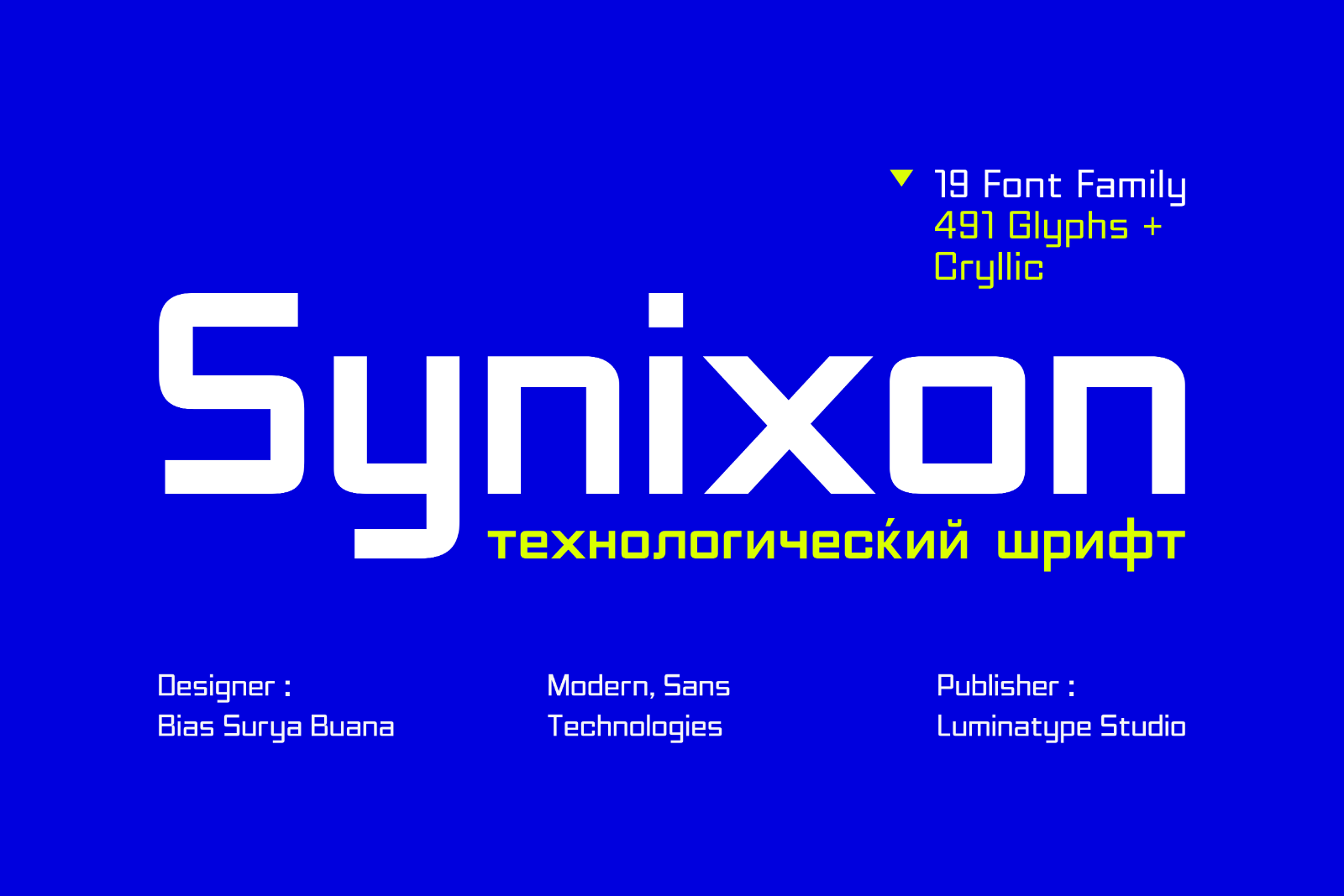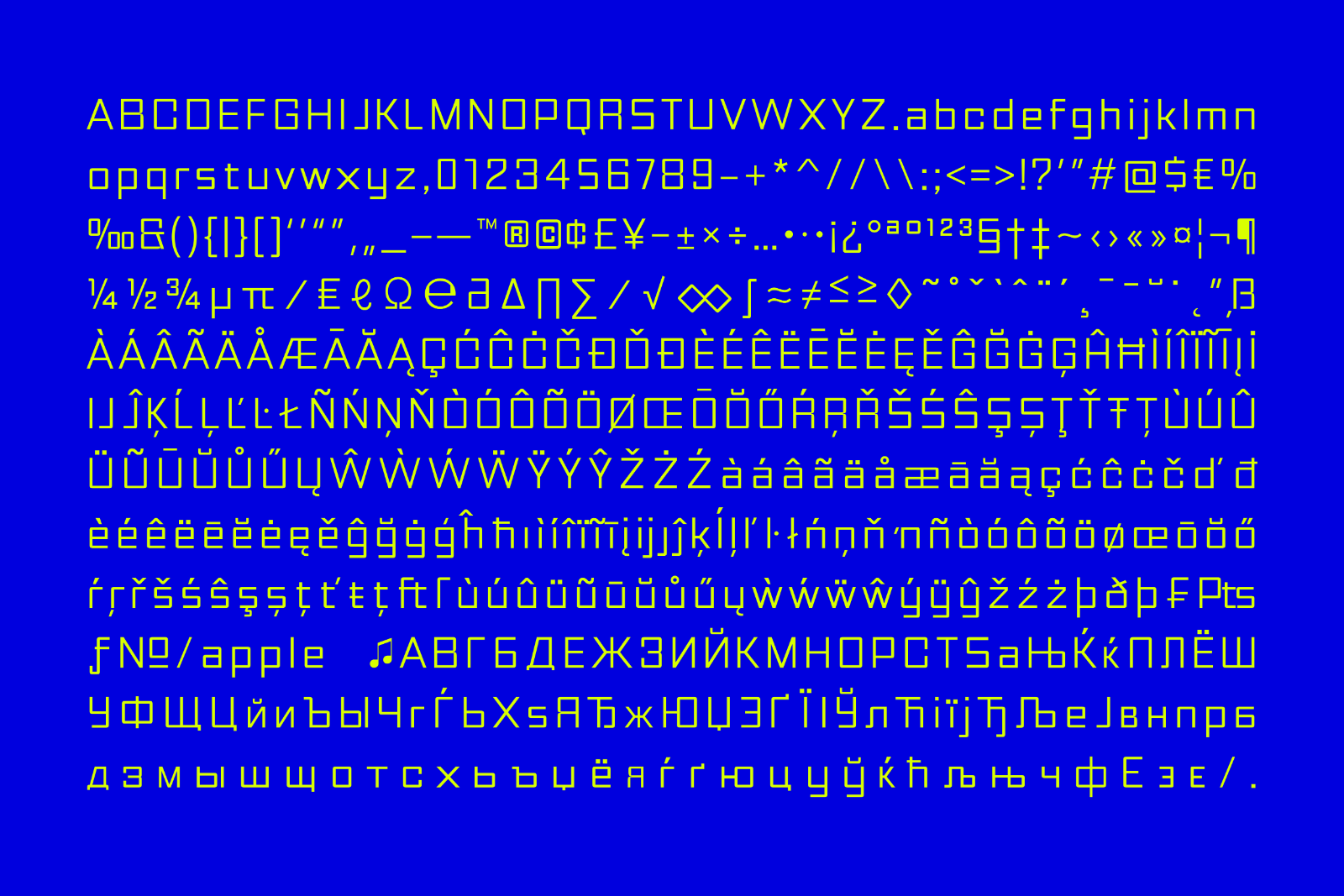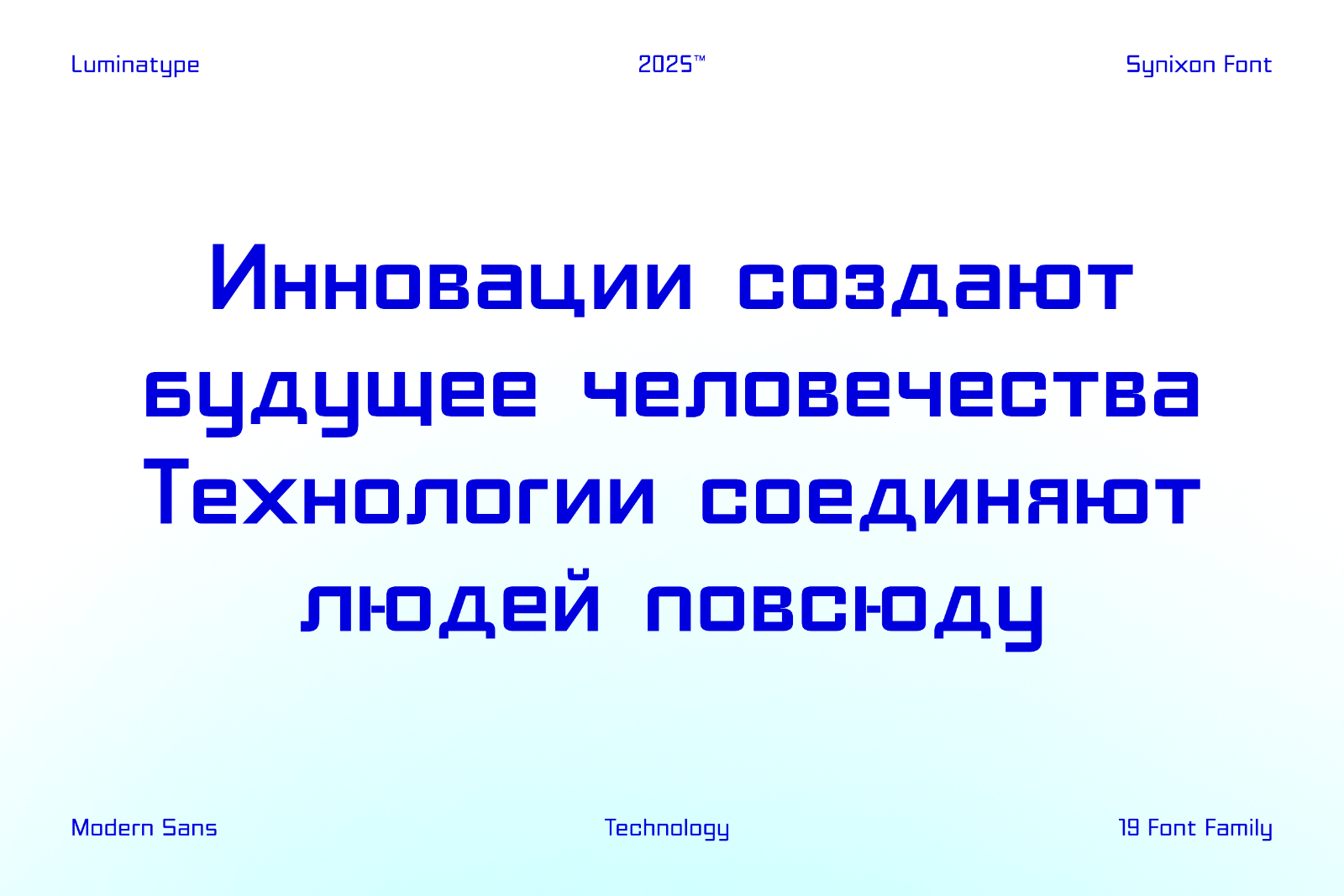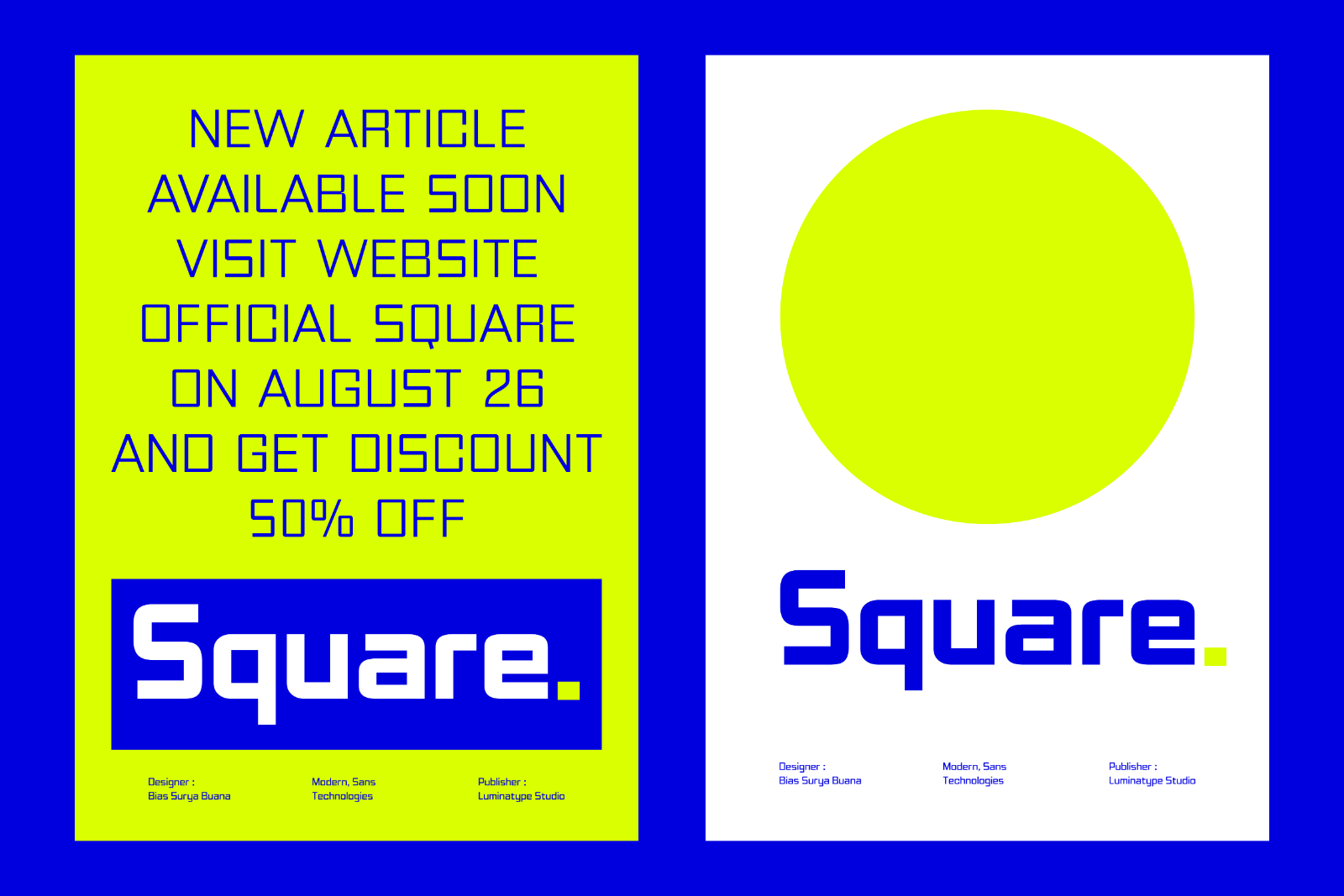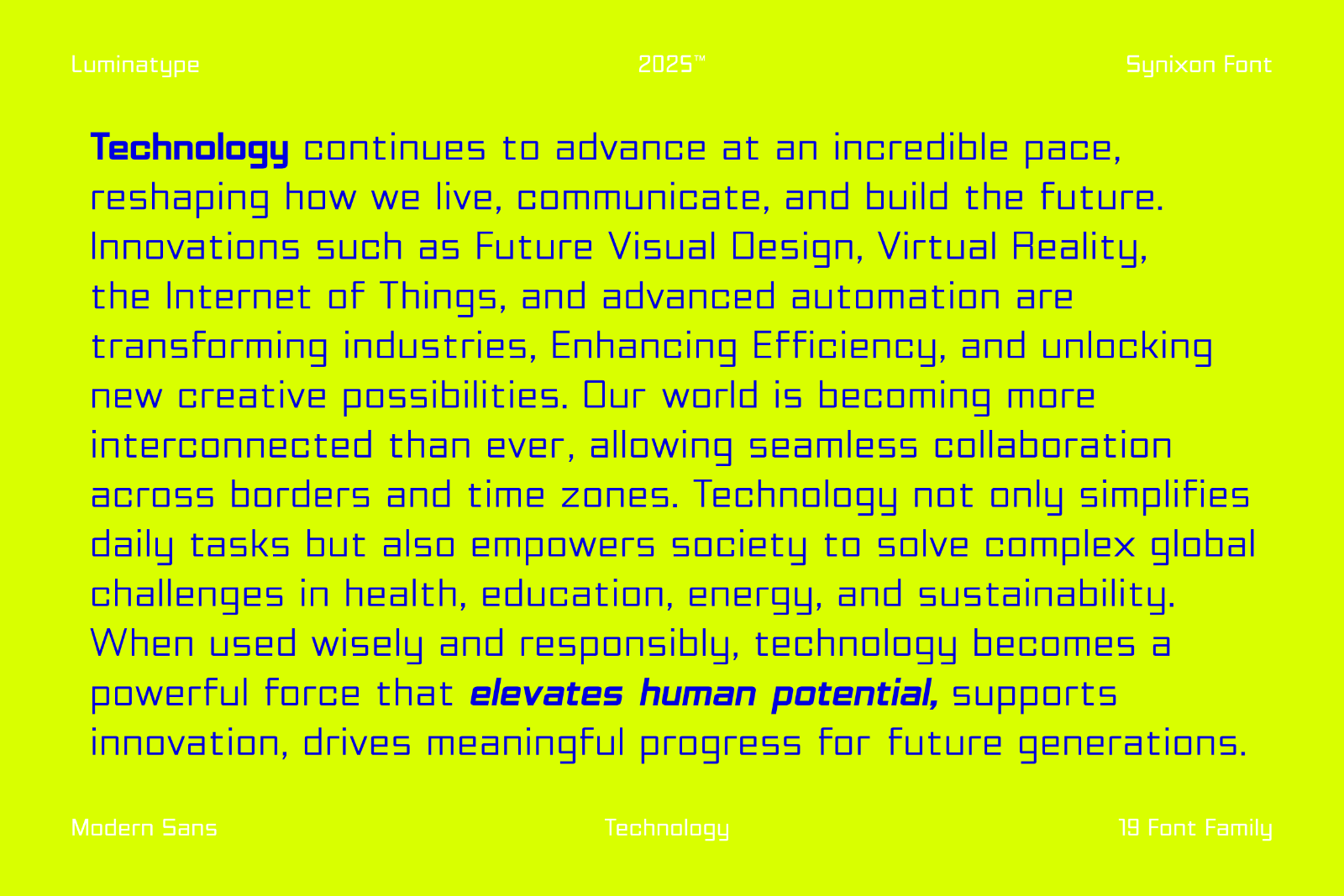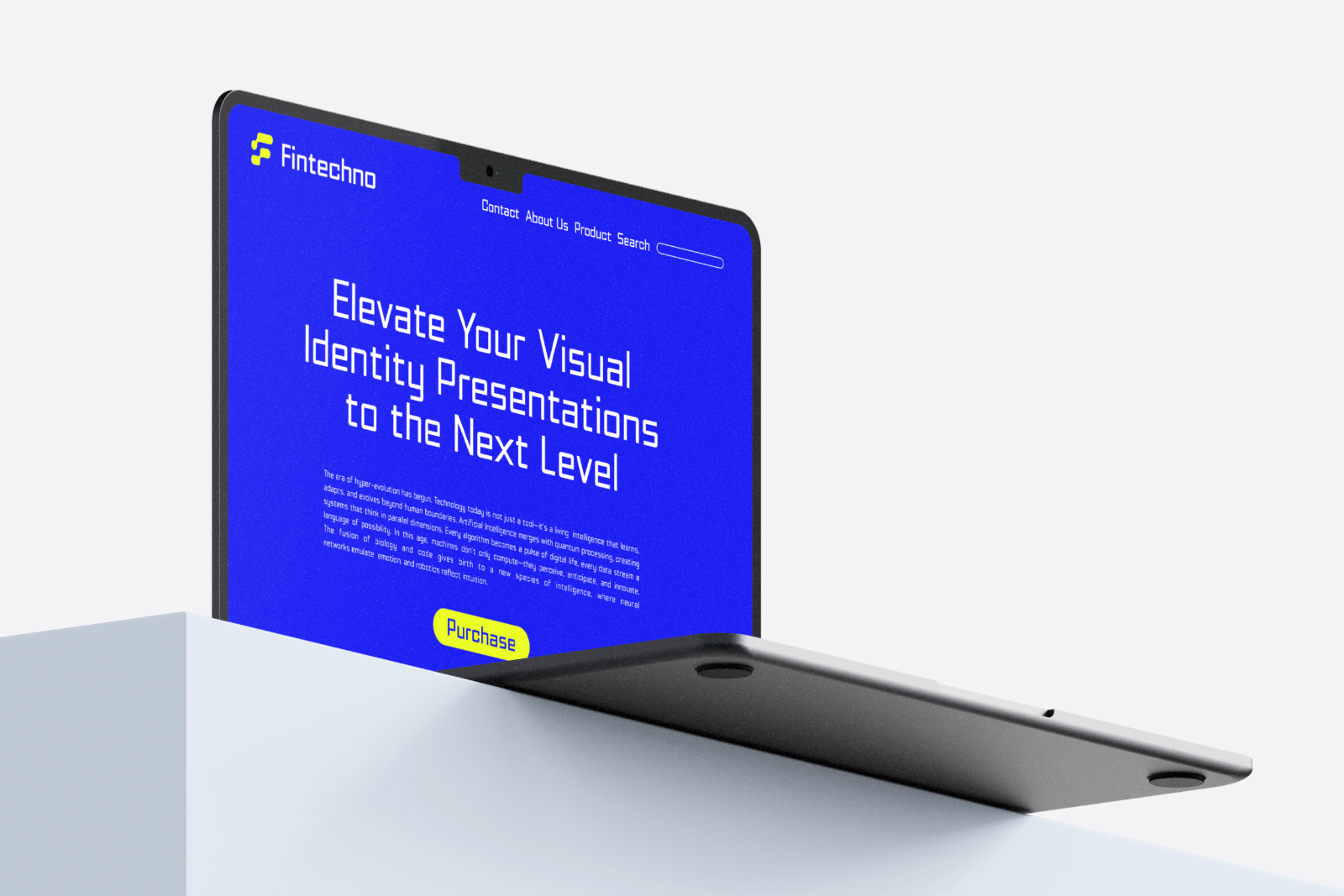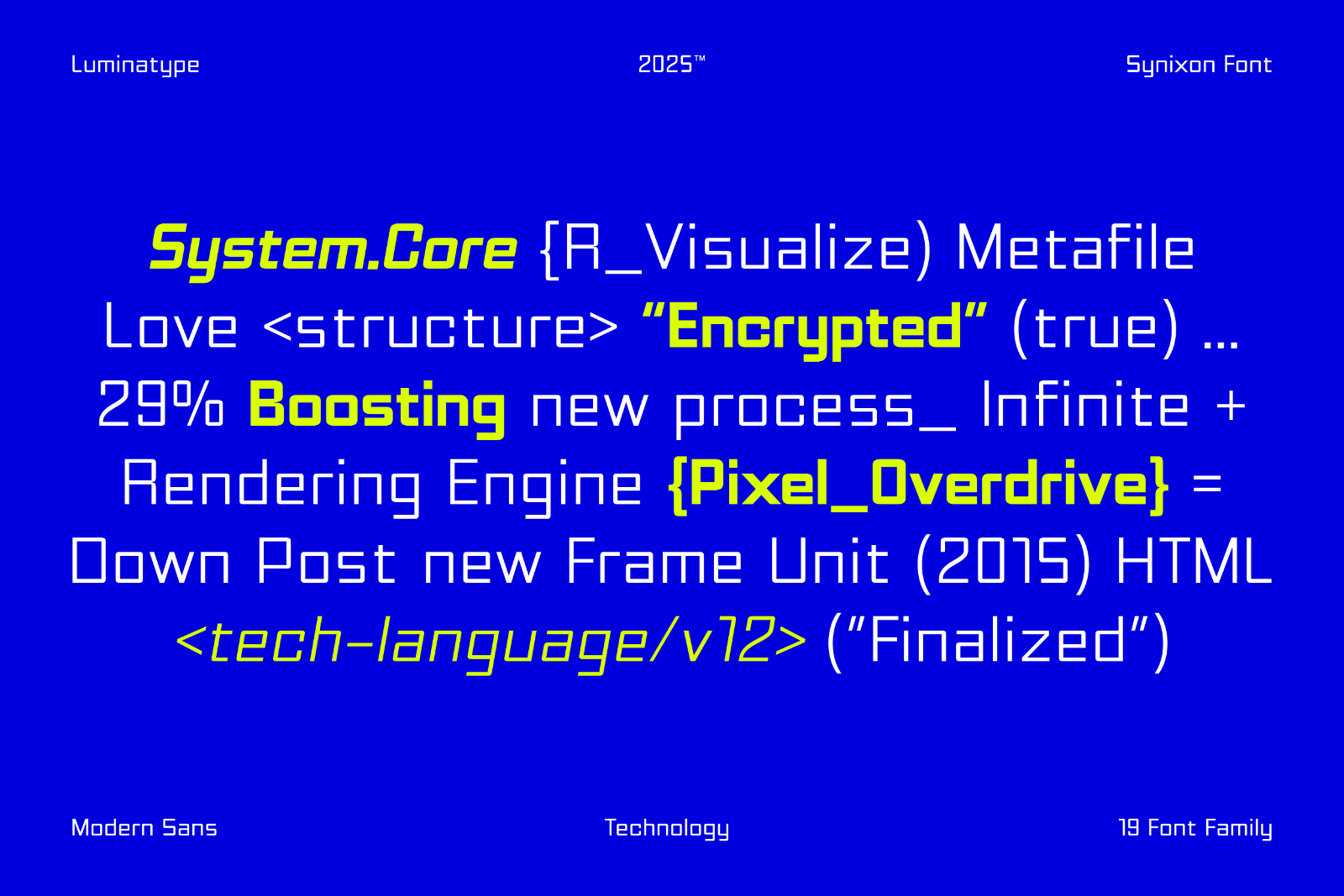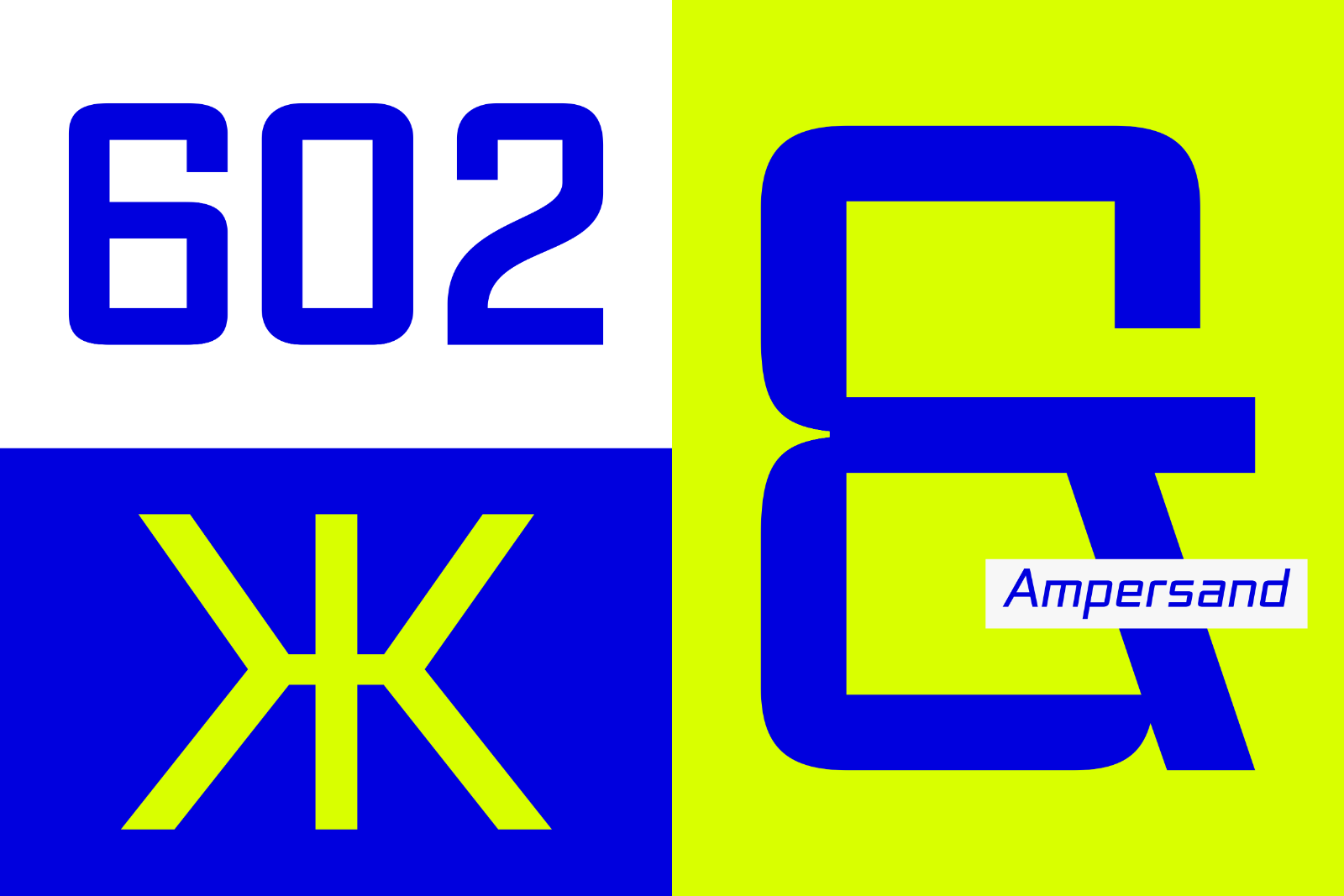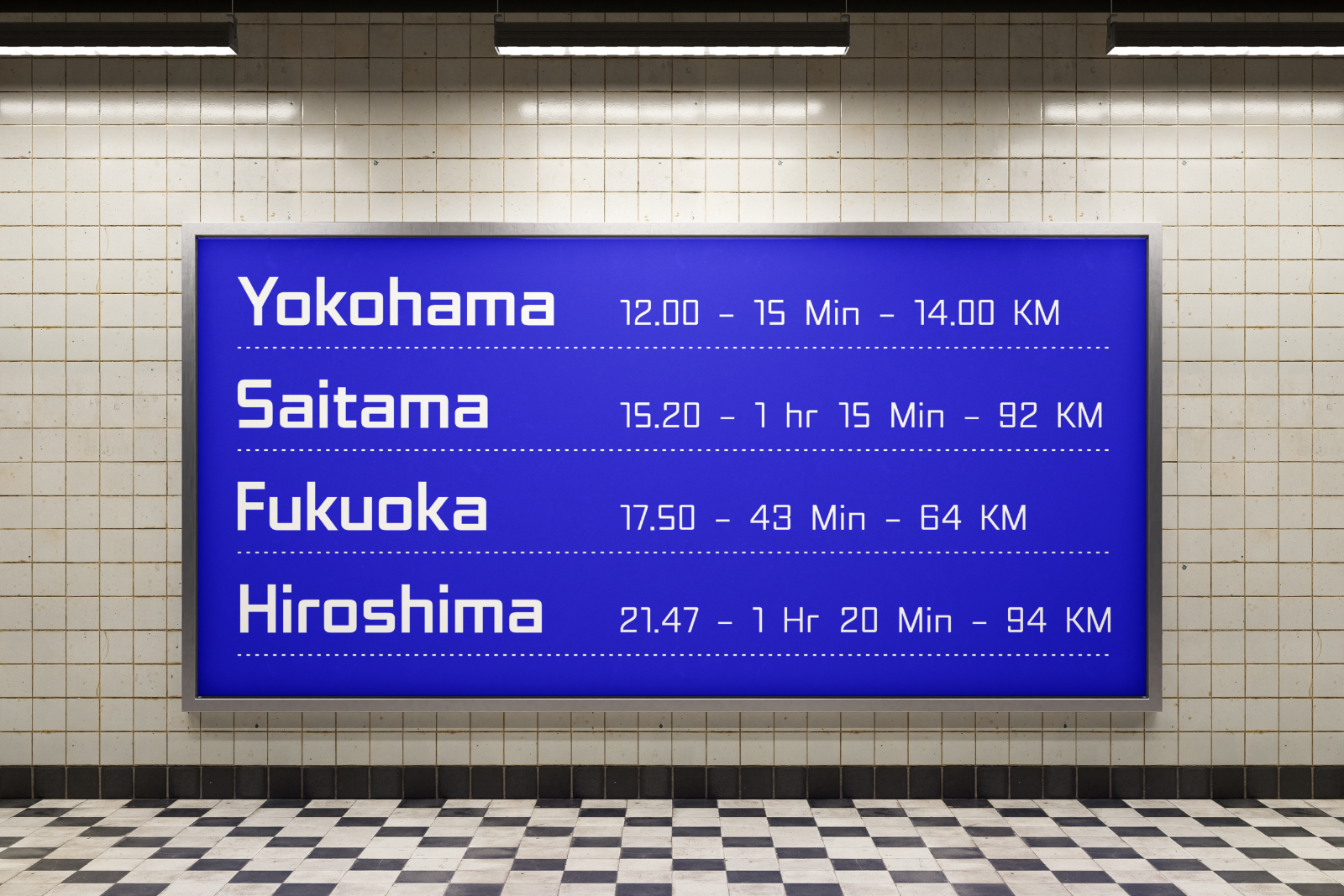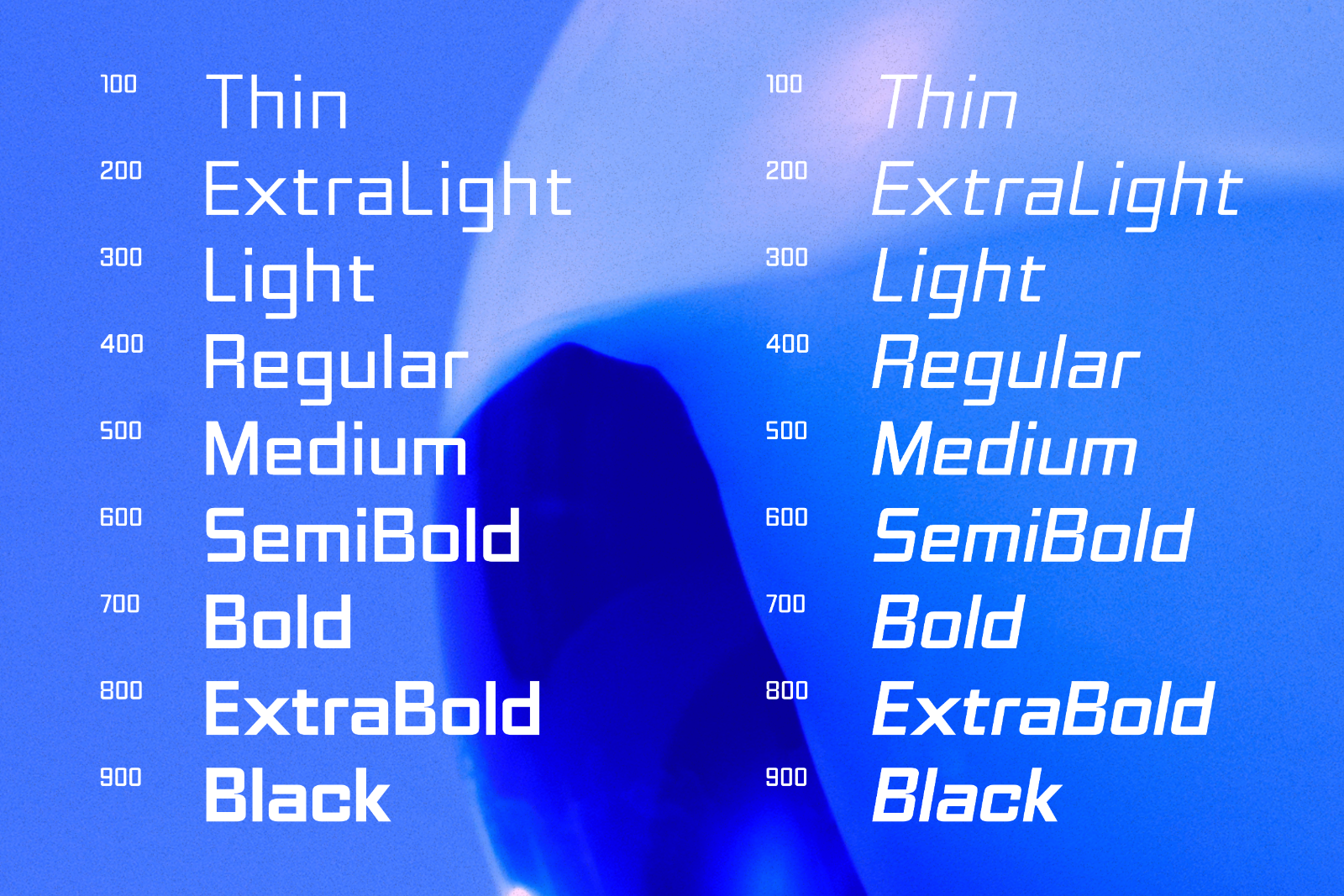
Synixon is a modern technological sans-serif typeface designed by Luminatype Studio, crafted for creators who seek clarity, power, and precision in every letterform. Engineered with a forward-thinking aesthetic, Synixon delivers a sleek and highly functional visual tone that elevates any contemporary design. This advanced type family features 19 weights from Thin to Black, accompanied by matching Italic styles from Thin–Black. Synixon also includes Cyrillic support and a robust set of 491 glyphs, ensuring broad versatility and seamless global communication. Built on a concept of simplicity, strength, and modern sharpness, Synixon offers excellent legibility even at small sizes — making it ideal for clean interfaces and high-tech visual environments. Its refined geometric construction and confident structure create a distinct presence without sacrificing readability or balance. Perfectly suited for Branding, Brand Identity, Logos, Websites, UI/UX, Editorial layouts, and a wide range of modern design needs, Synixon adapts effortlessly to both minimalistic and futuristic aesthetics. Choose Synixon and bring a bold, intelligent, and innovative character to your next project — a font crafted to make your design impossible to ignore.